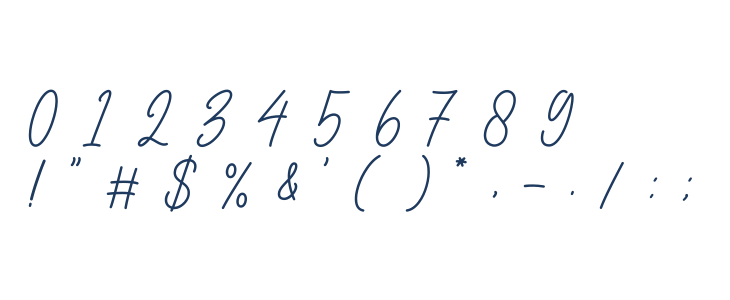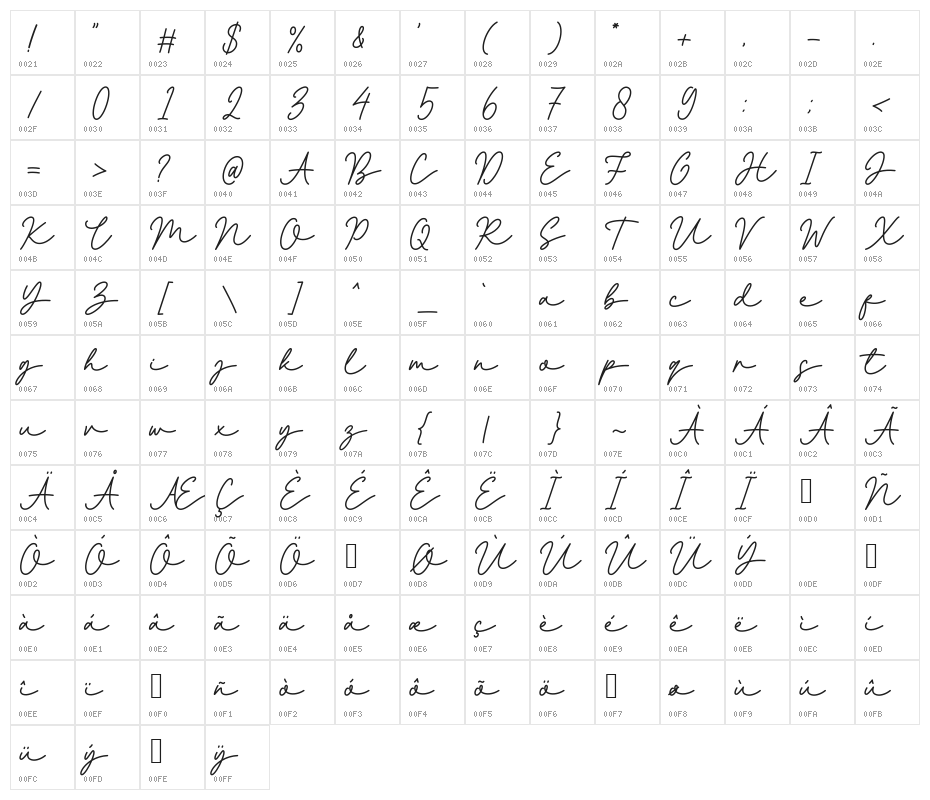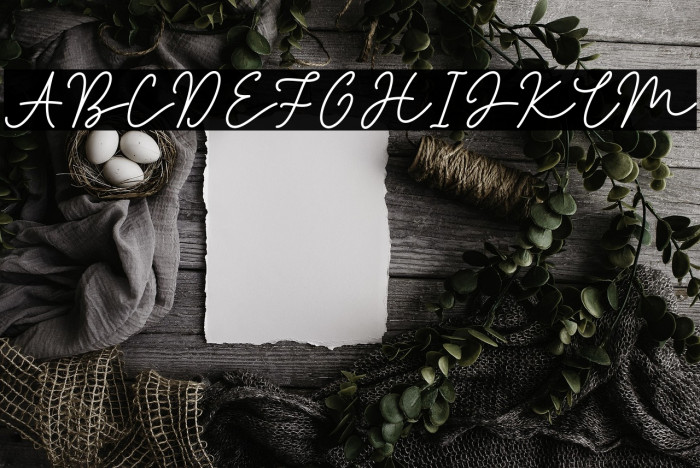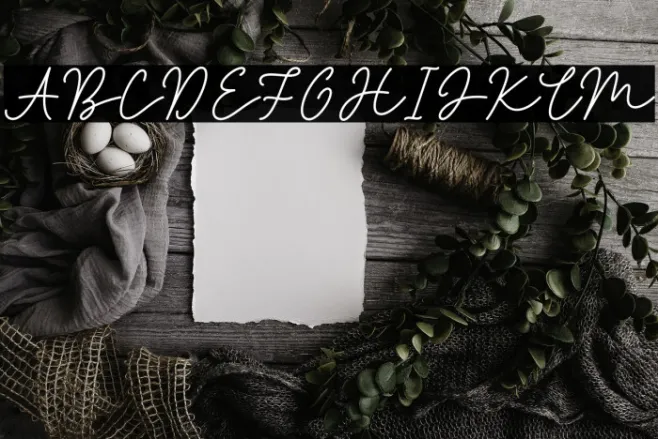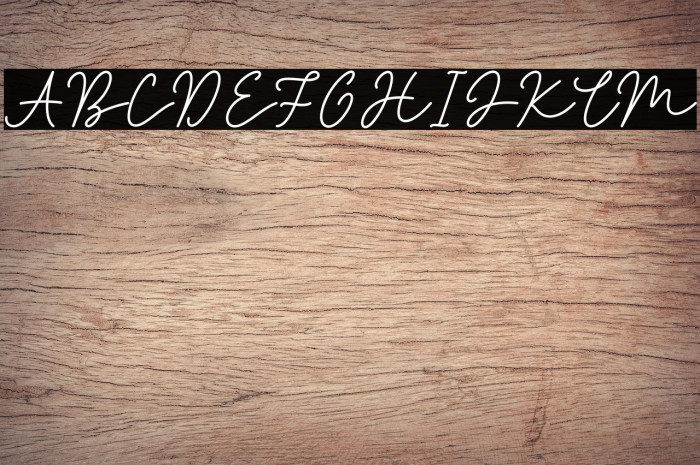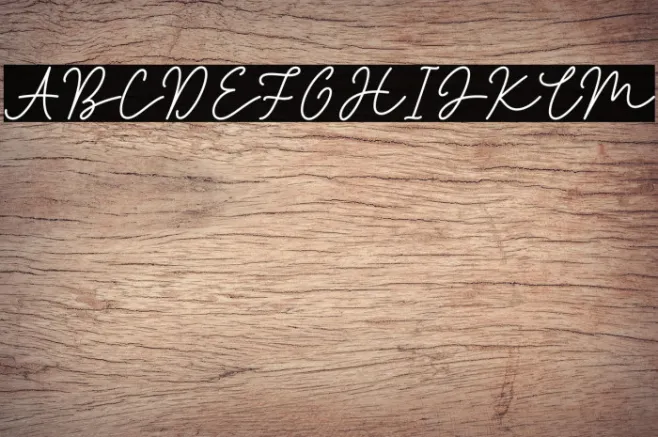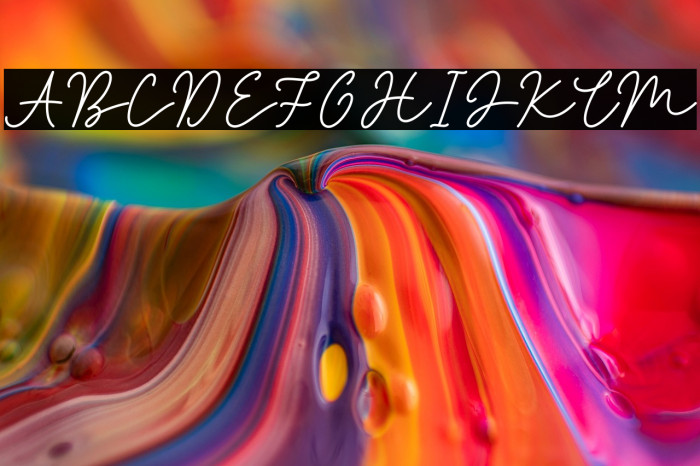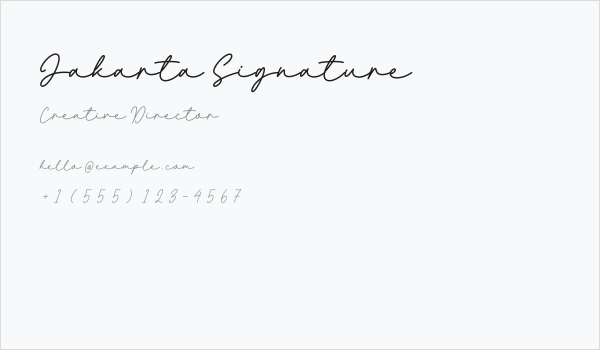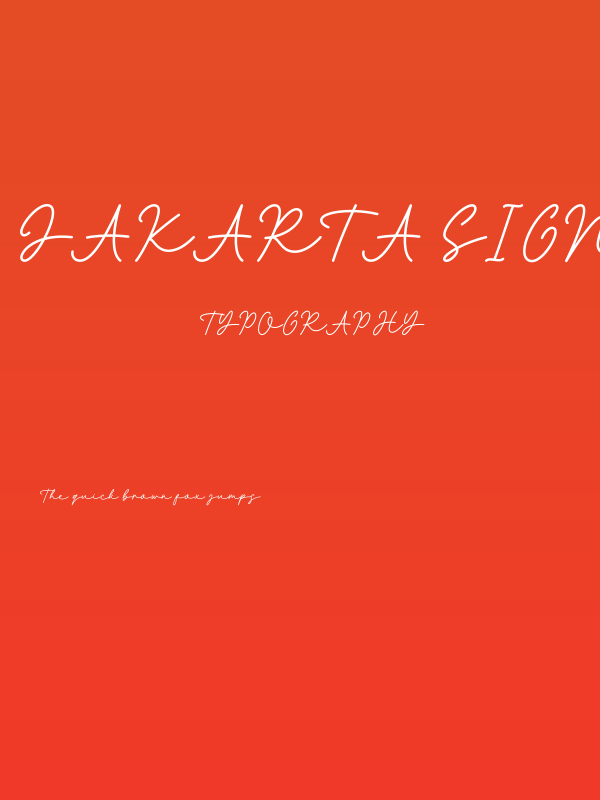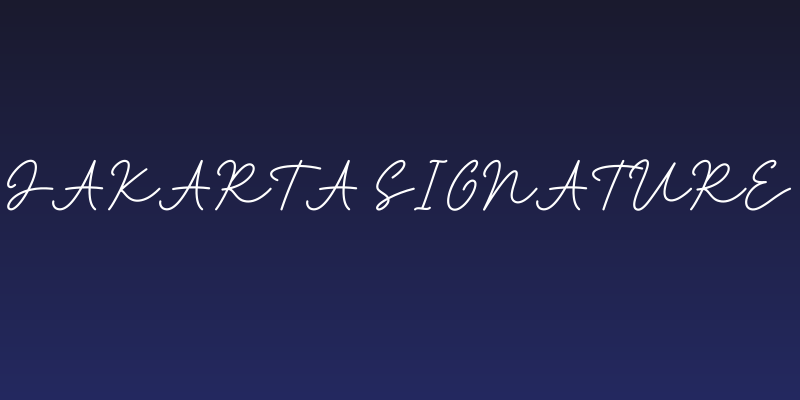
Jakarta Signature Font
Jakarta Signature Description
This font exudes a modern, elegant script style with a handwritten touch. The characters are fluid and connected, giving a sense of continuity and flow. The uppercase letters are slightly more formal, while the lowercase letters maintain a casual, approachable feel. The numerals are consistent with the overall style, maintaining the same fluidity and elegance. Special characters are included, matching the script's aesthetic. The font's thin strokes and smooth curves make it suitable for projects that require a personal, sophisticated touch.
| Proposed Projects | Ideal for wedding invitations, personal branding, greeting cards, and elegant packaging. |